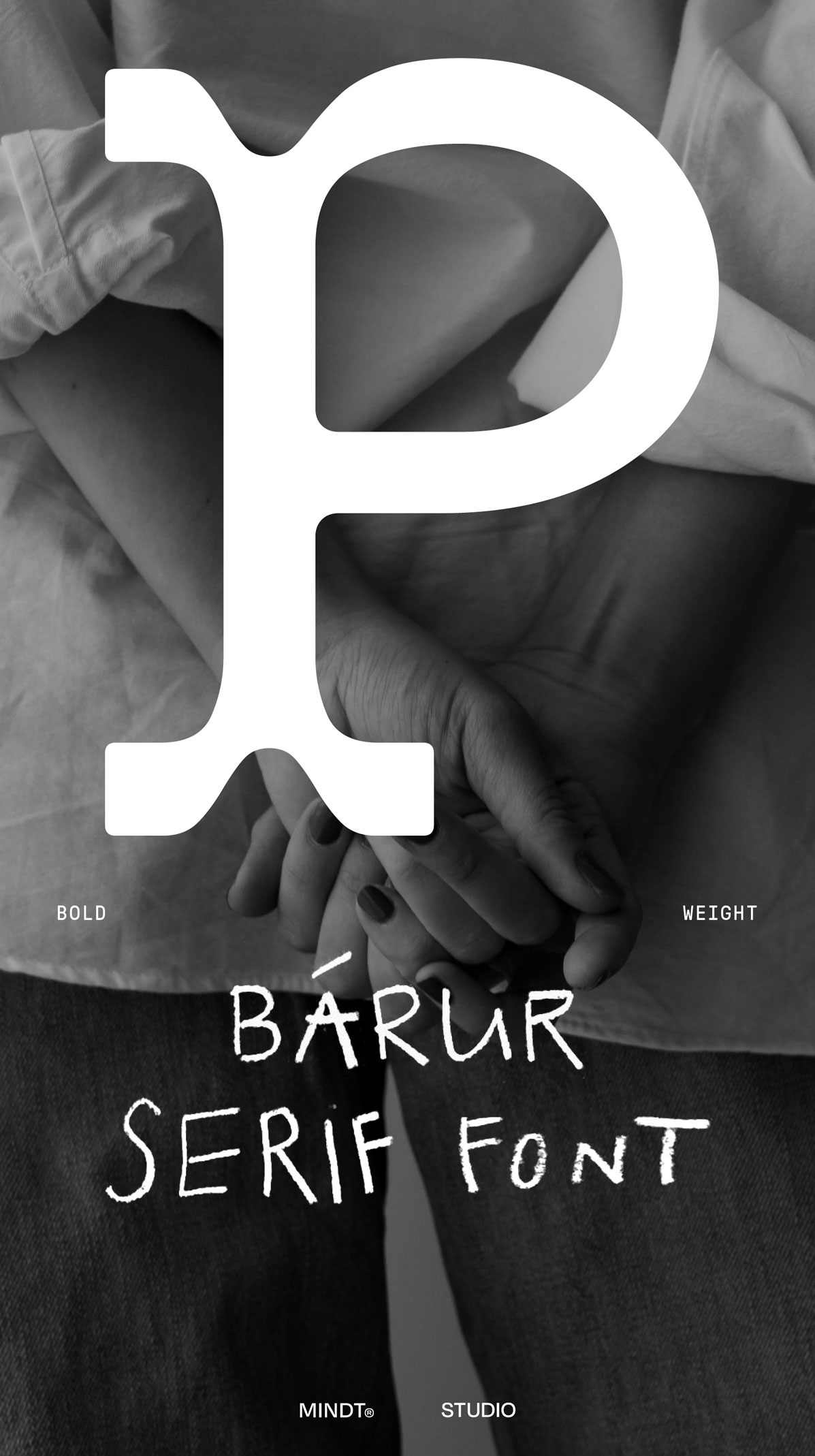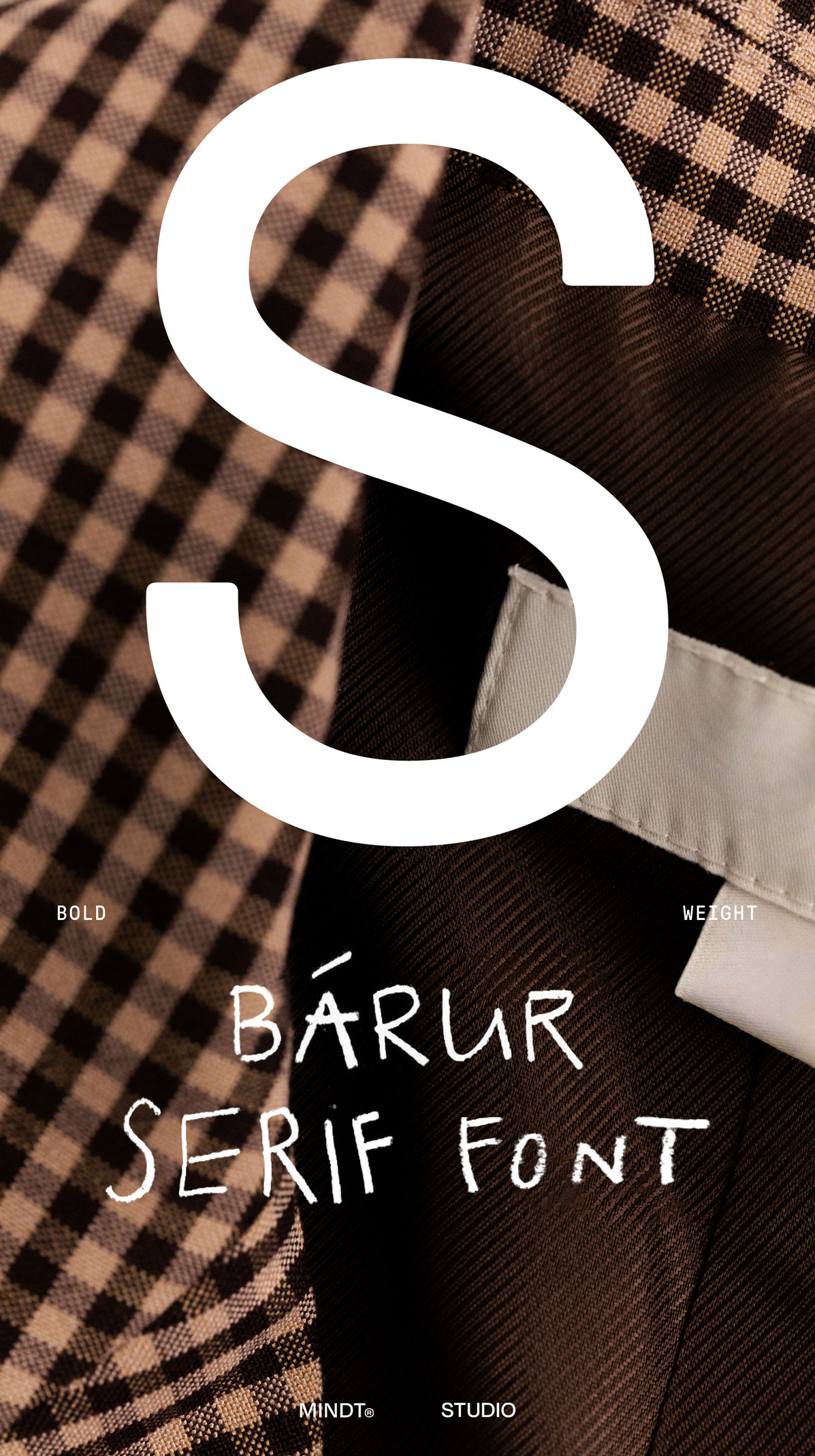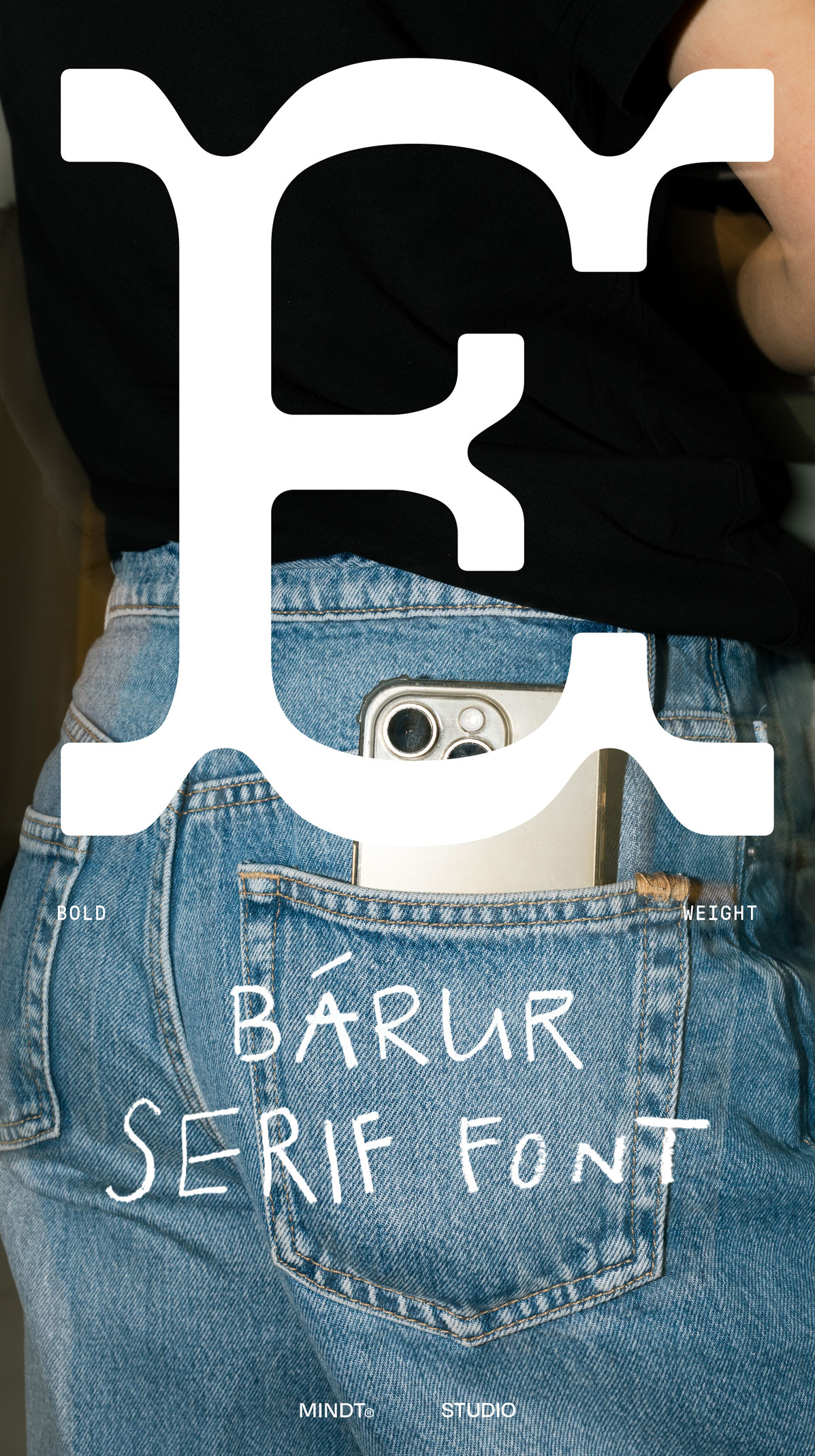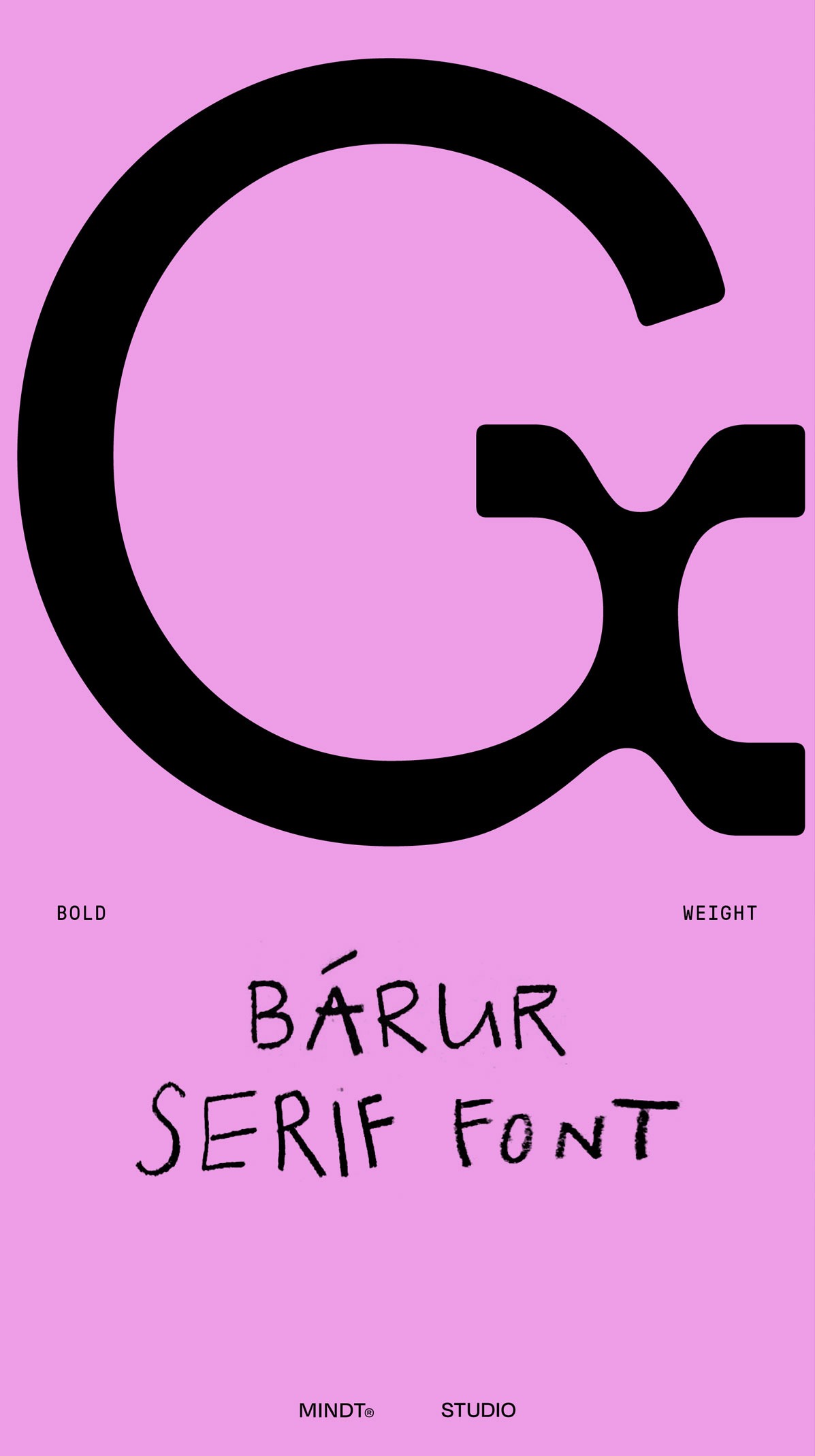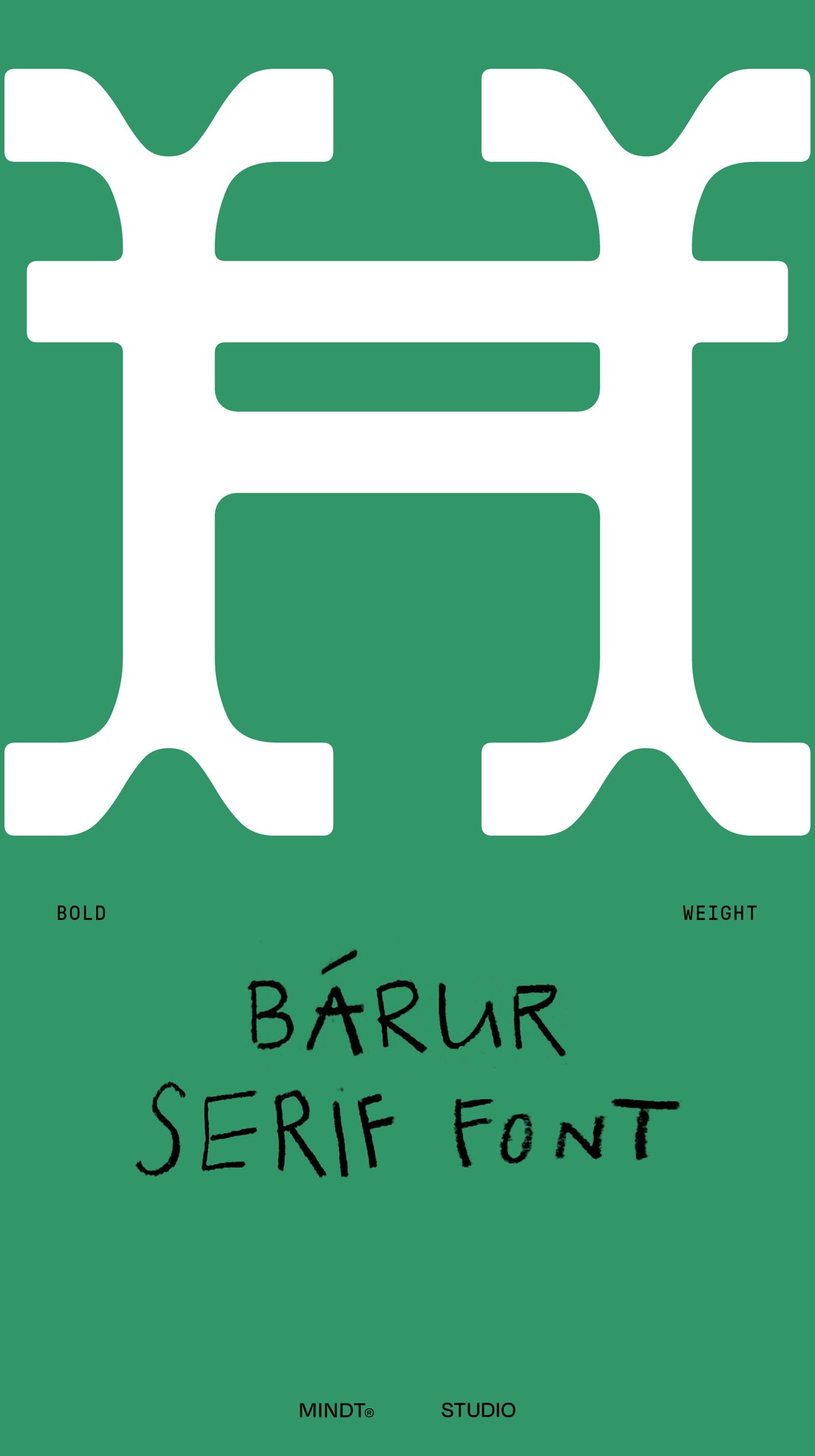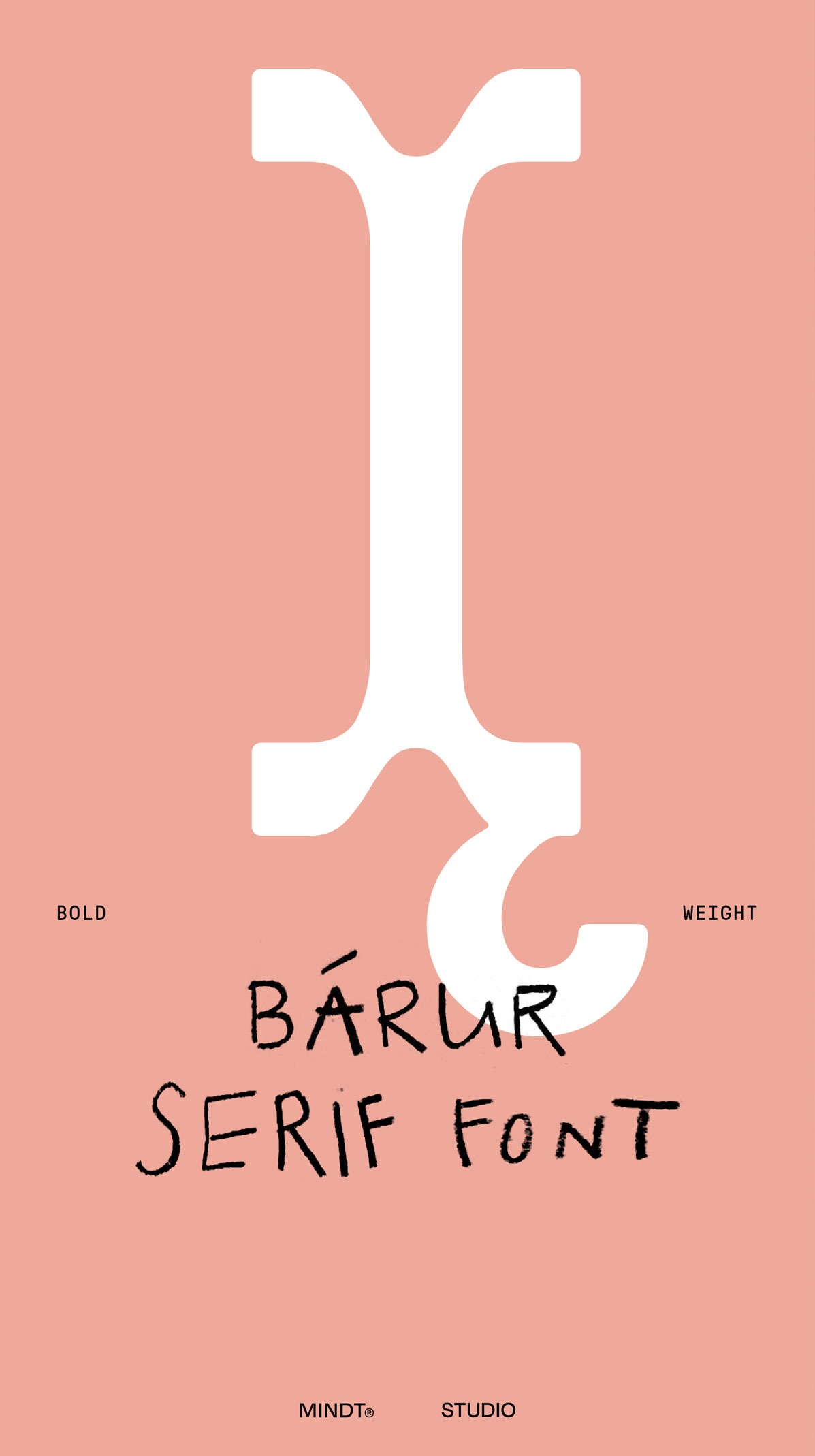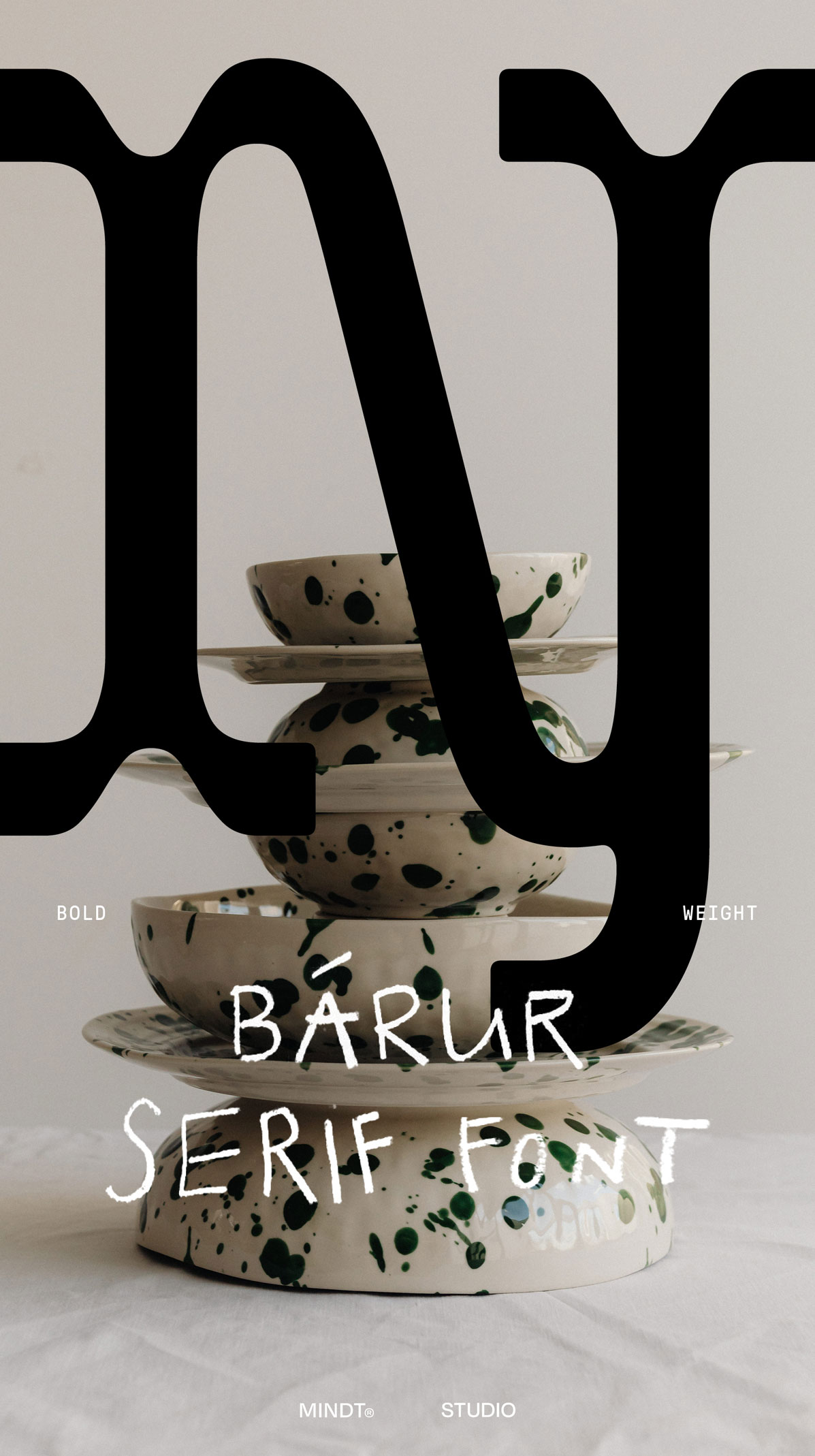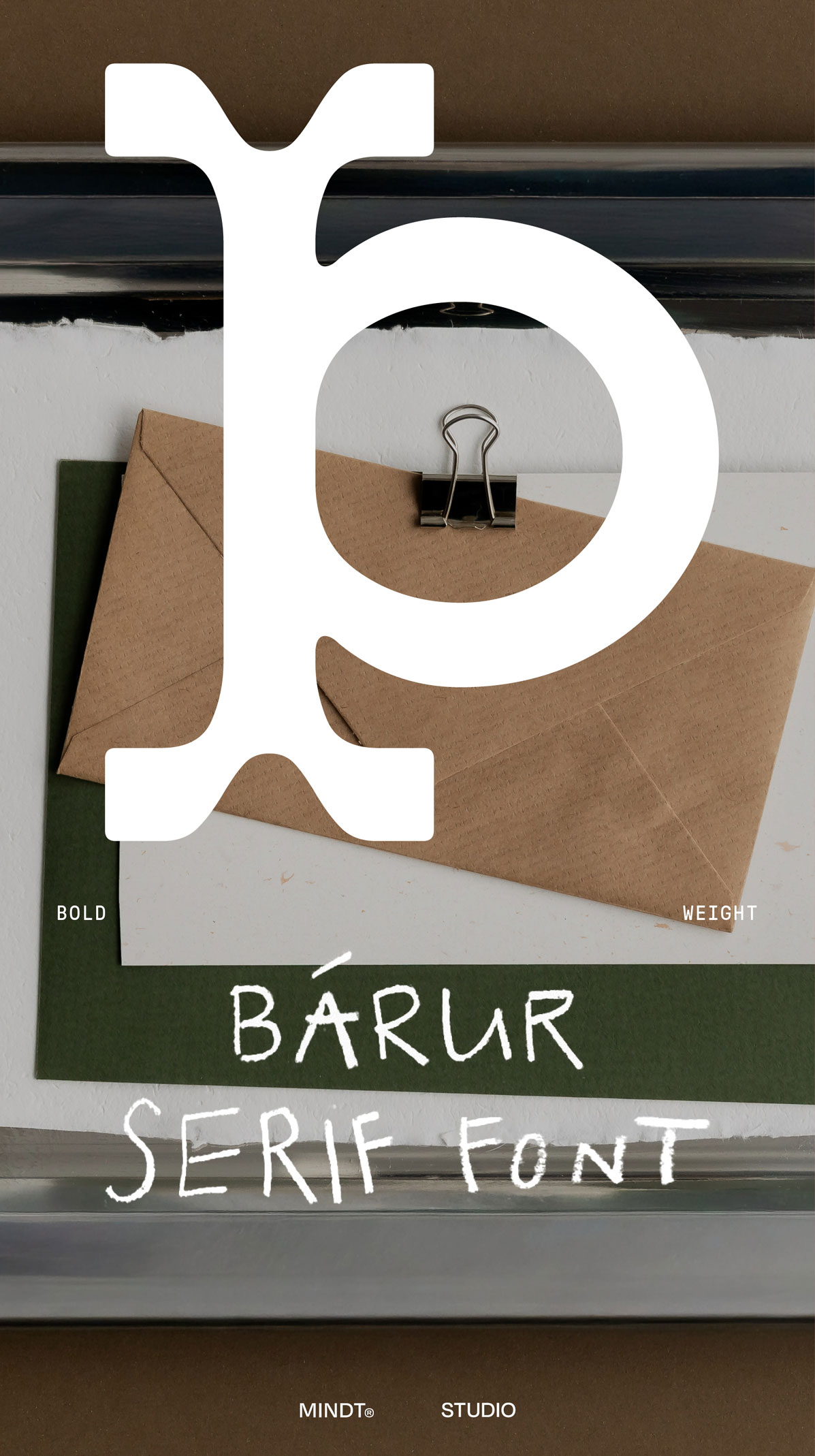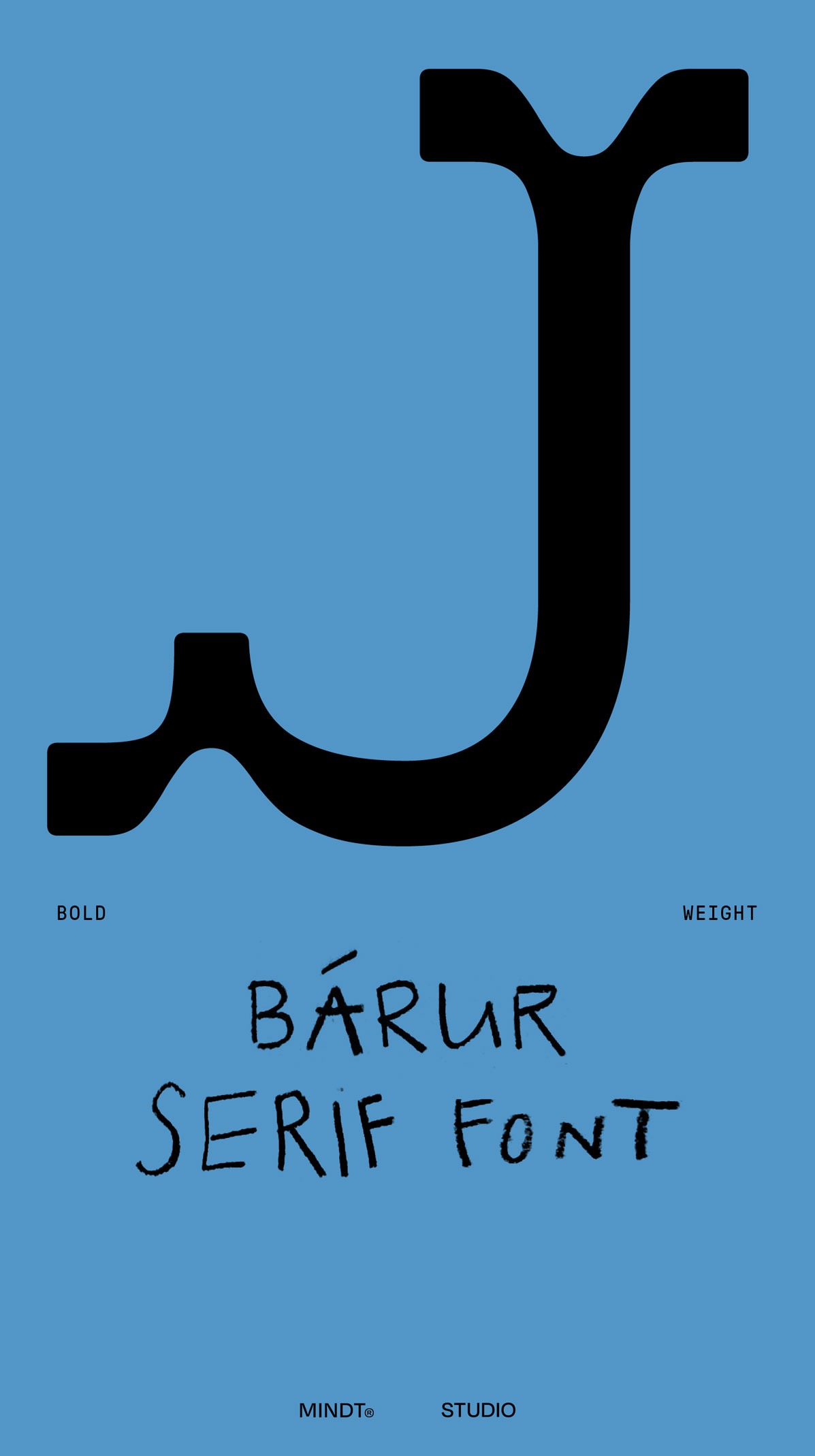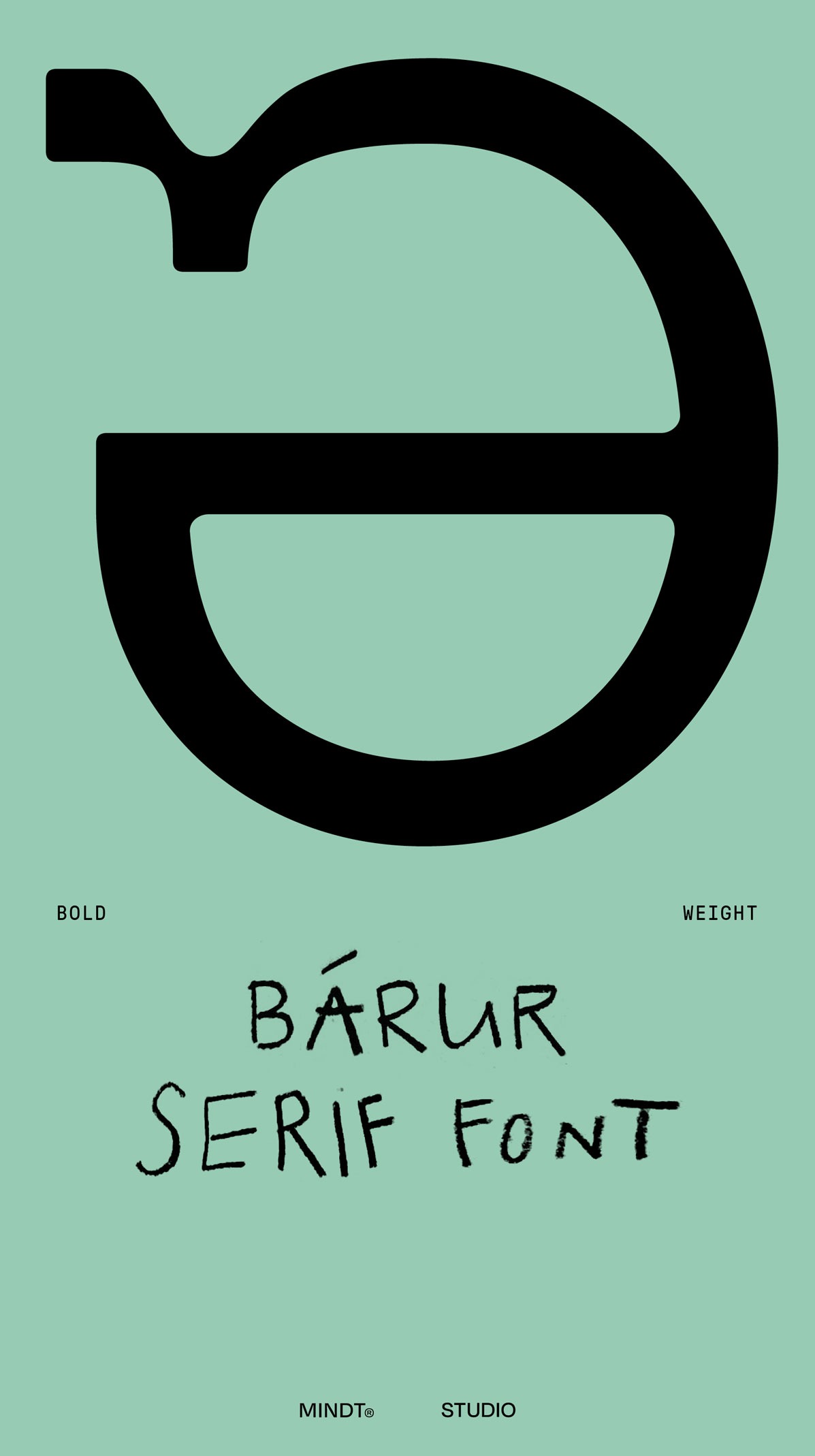
Bárur Serif Font — Letterform Gallery
Selected letterforms in Bárur Regular, Light, and Bold, placed across a range of visual contexts.
01 A Visual Alphabet
(in Bárur Regular)
02 A Visual Alphabet
(in Bárur Light)
03 A Visual Alphabet
(in Bárur Bold)
An ongoing collection of visual studies featuring selected Bárur letterforms in Regular, Light, and Bold. Each composition is accompanied by custom handwritten lettering created specifically for this series. Letterforms. Photography. Color. Nothing more to add.
Exploring Bárur across a range of visual contexts, from branding, packaging, fashion, beauty, and wellness to lifestyle, sports, culture, and editorial design.